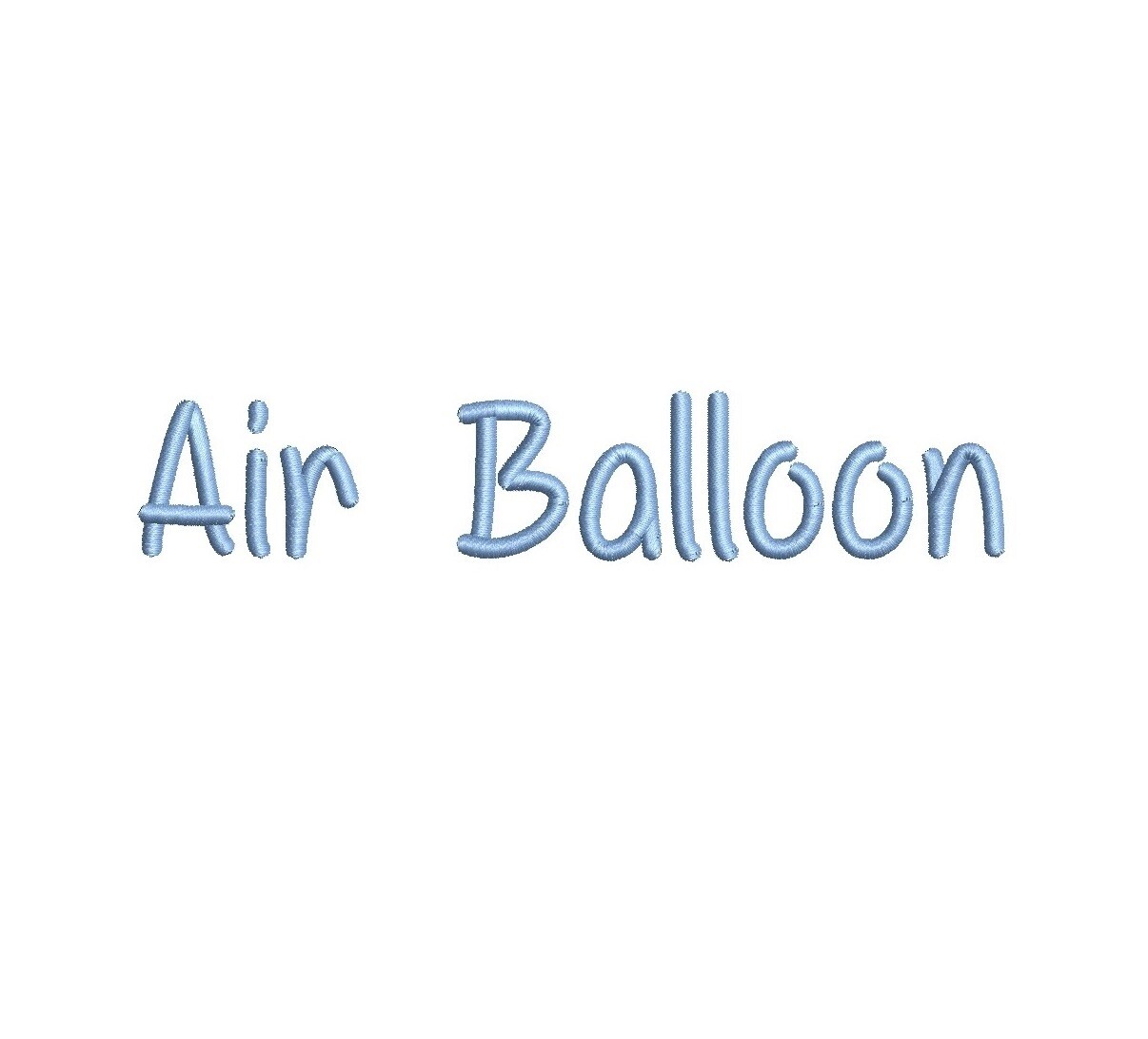
Step into a world of creativity with Air Balloon Regular ESA font - a perfect choice for your embroidery projects. This enchanting typeface is expertly designed to add a touch of elegance to your creations while ensuring seamless compatibility with Wilcom Studio e4.5.6 and Hatch 3 versions and above. Crafted with precision, its smooth curves and balanced letterforms create stunning results on any fabric. Elevate your designs with Air Balloon Regular ESA's versatile appeal, ideal for monogramming, apparel, home decor, and more. Unlock limitless design possibilities and elevate your embroidery experience today!